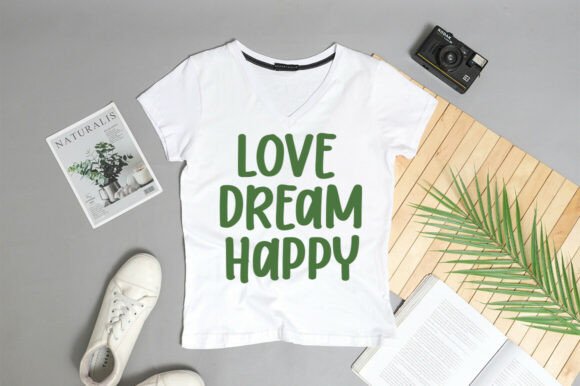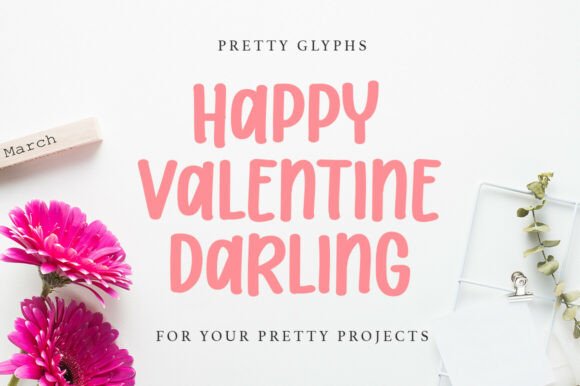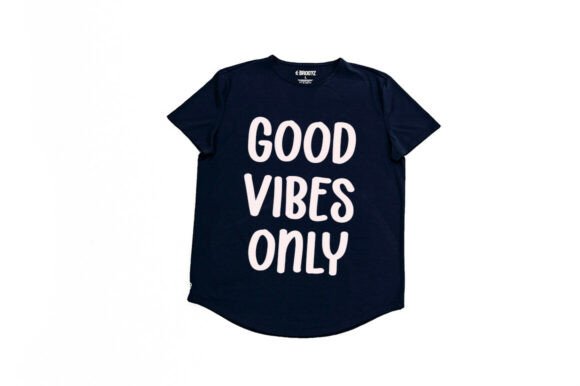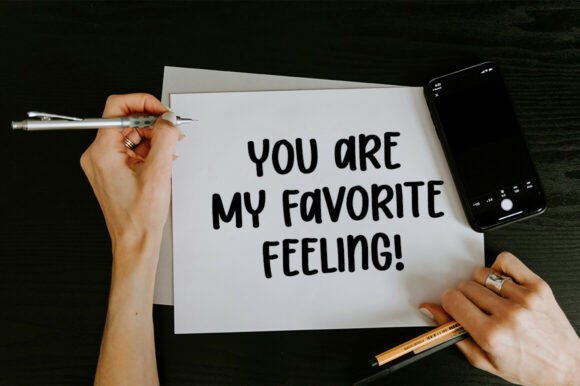
Introduction to Dearly Font
Dearly is a bold and puffy handwritten font that brings a cozy, tactile feel to your creative work.
Characterized by its thick, marshmallow-like curves and friendly irregular edges, Dearly mimics the look of a bold marker on paper It is an excellent choice for high-impact headlines that need a human touch, such as stickers, playful apparel, or upbeat video overlays.